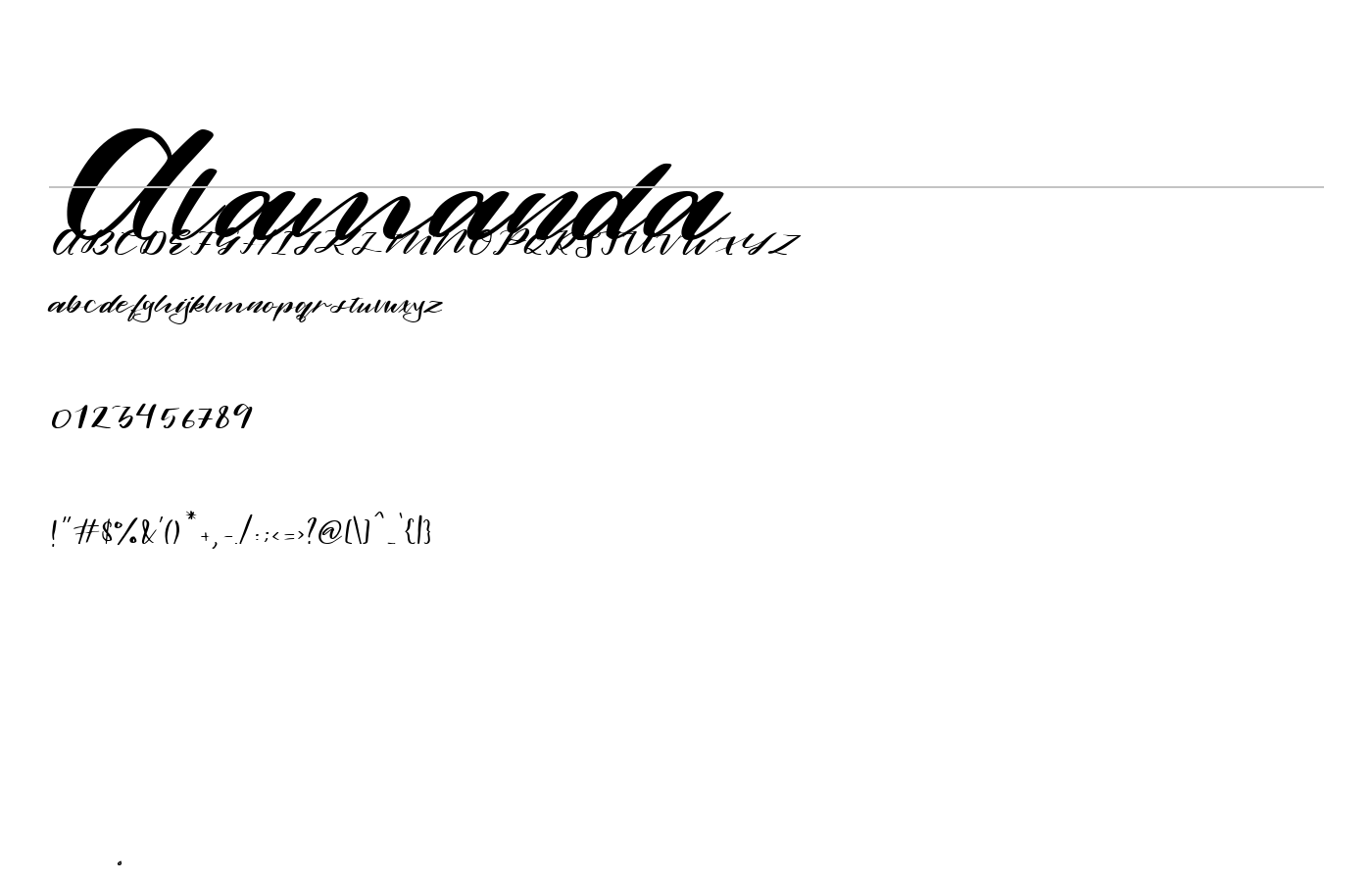
Alamanda is an elegant script font featuring fluid, connected letterforms with a graceful, handwritten feel. Its delicate strokes and smooth curves give it a refined, sophisticated personality, making it ideal for luxury branding, invitations, and stylish editorial work where a touch of classic charm is desired. The font’s light weight and distinct italics create a sense of movement and elegance, perfect for projects that seek to convey beauty and refinement.
Alamanda Font
About Alamanda Font